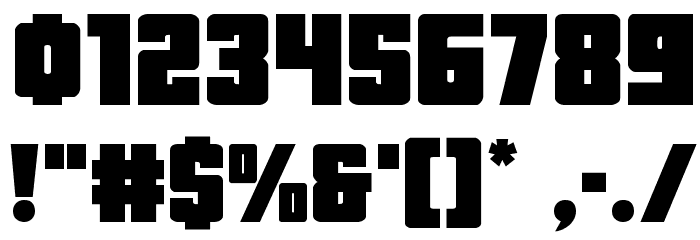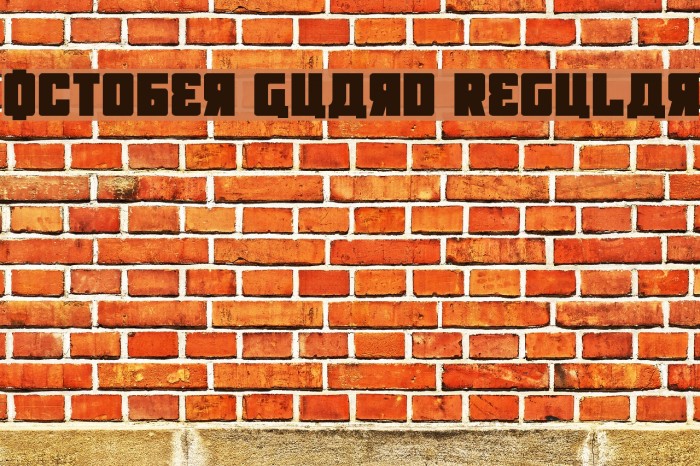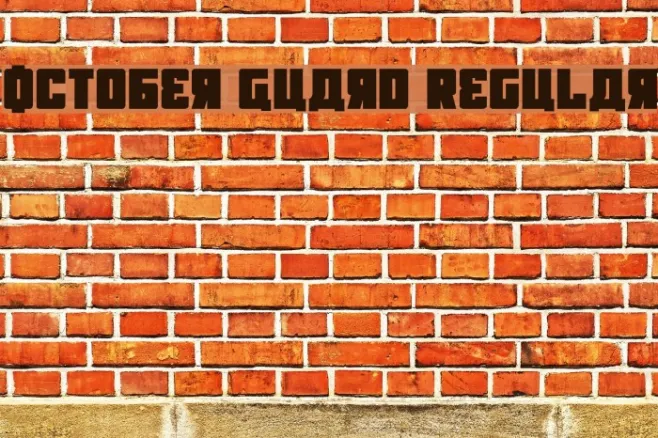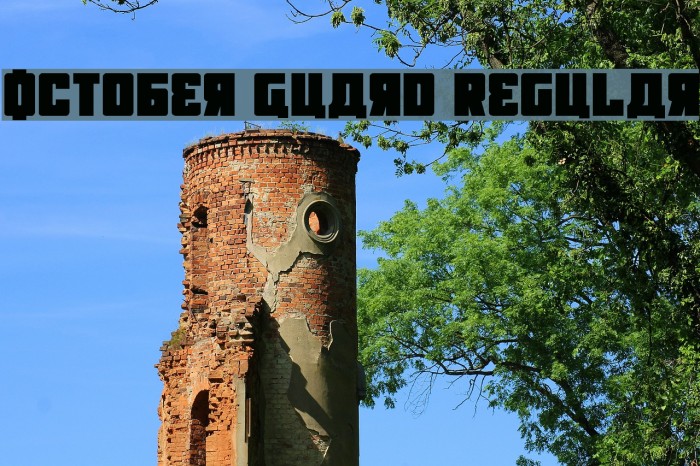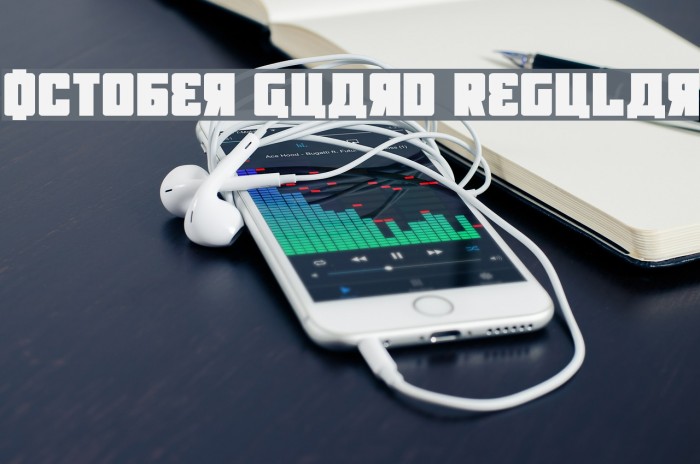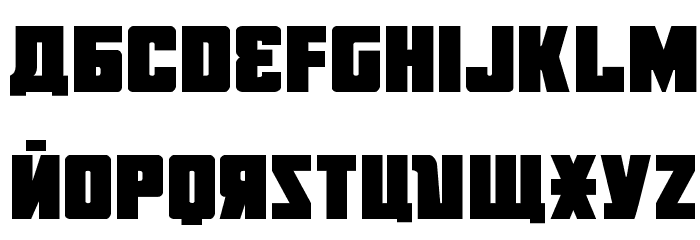
October Guard Regular Font
October Guard Regular Description
This font features a bold, geometric style with strong, block-like characters. The uppercase letters are particularly striking, with a uniform height and width that give a sense of solidity and strength. The lowercase letters maintain this robust appearance, ensuring consistency across the typeface. Numbers and special characters are equally bold, making them stand out in any design. The font's heavy weight and solid construction make it ideal for impactful headlines and attention-grabbing designs. Its style is reminiscent of industrial or military themes, with a modern twist.
| Proposed Projects | Ideal for posters, logos, branding, and any project requiring a bold, impactful typeface. |